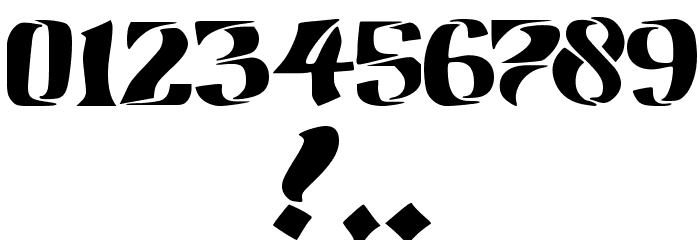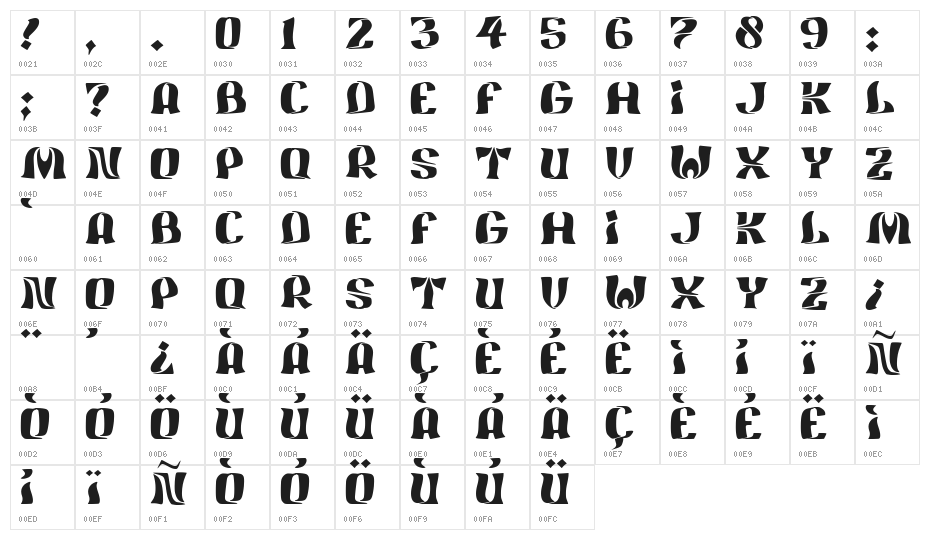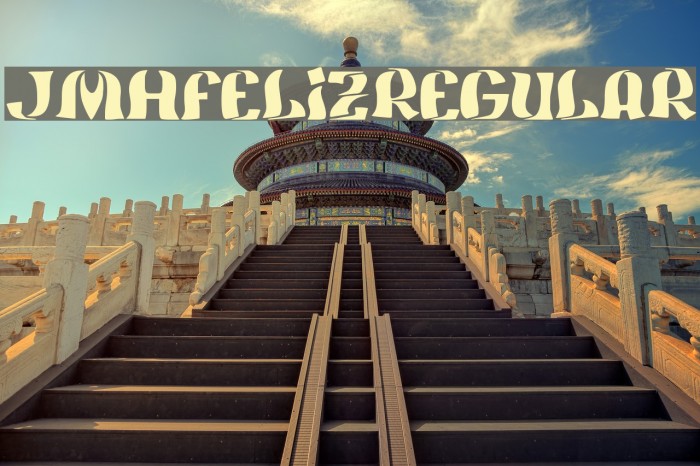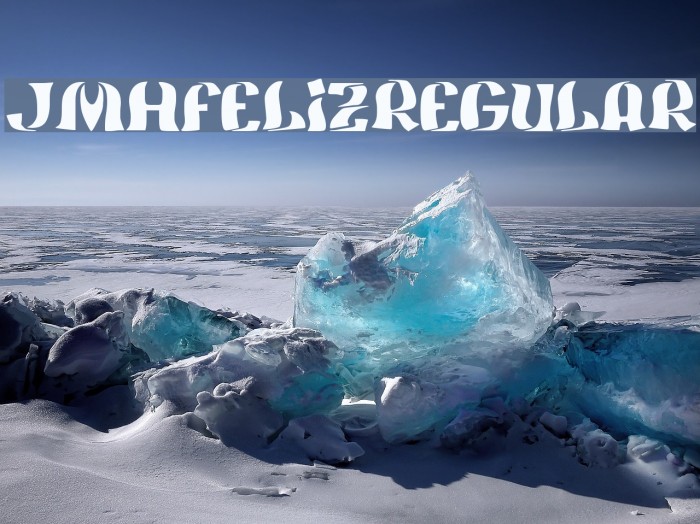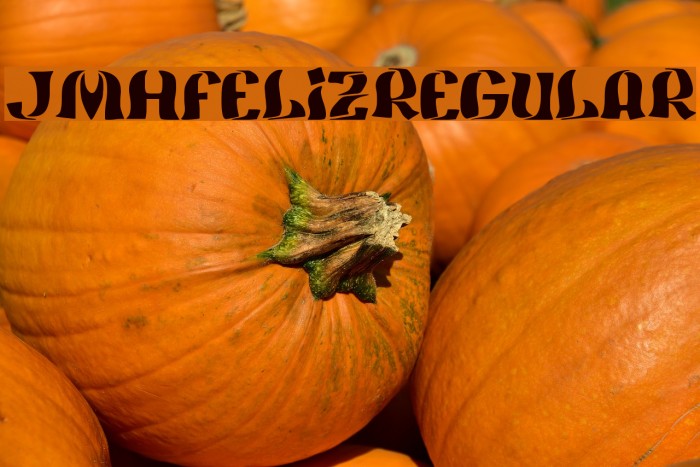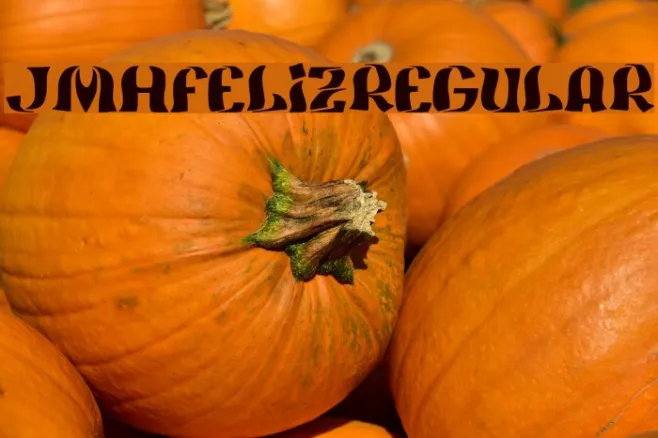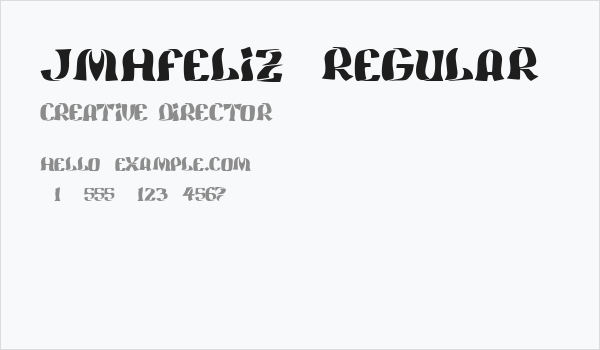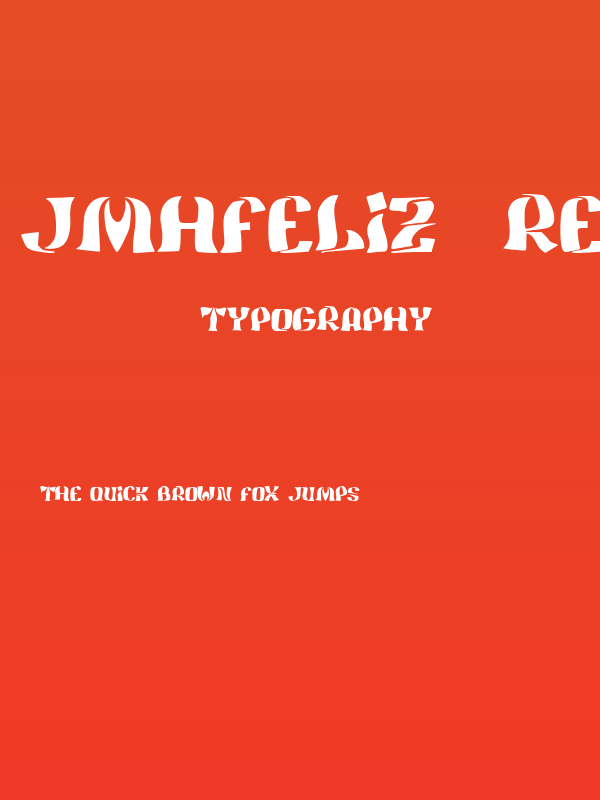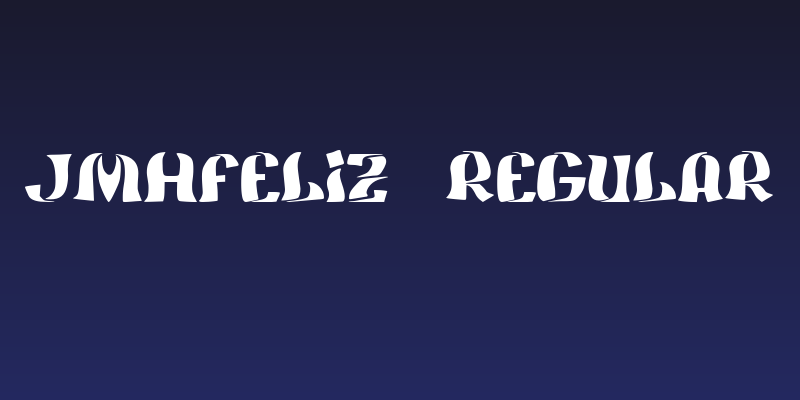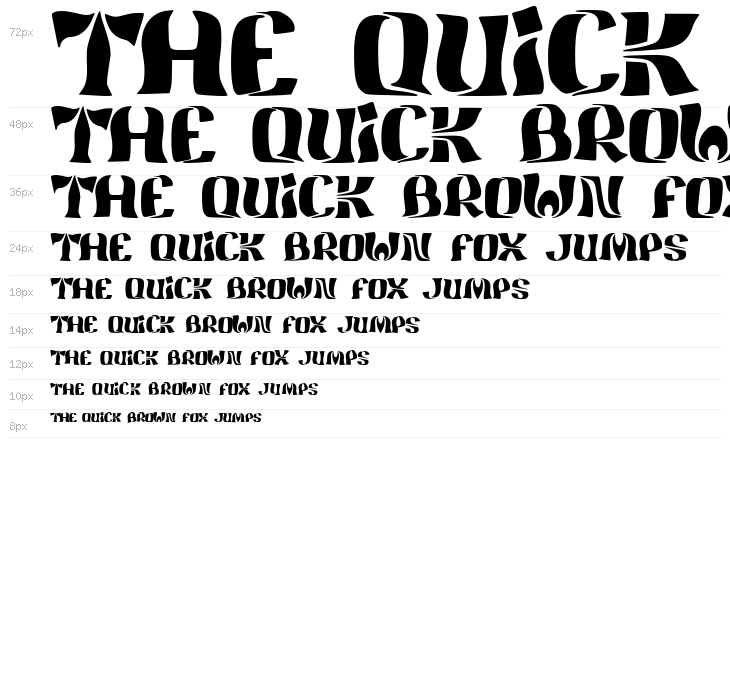
JMHFeliz-Regular Font
JMHFeliz-Regular Description
This font features a bold and dynamic design with a strong presence. The characters exhibit a unique blend of sharp angles and smooth curves, creating a striking visual impact. The uppercase and lowercase letters maintain a consistent style, with each character showcasing a distinct flair. The numerals are equally bold, ensuring readability while maintaining the font's overall aesthetic. Special characters are creatively integrated, adding to the font's versatility. This font is ideal for projects that require a bold statement and a touch of creativity.